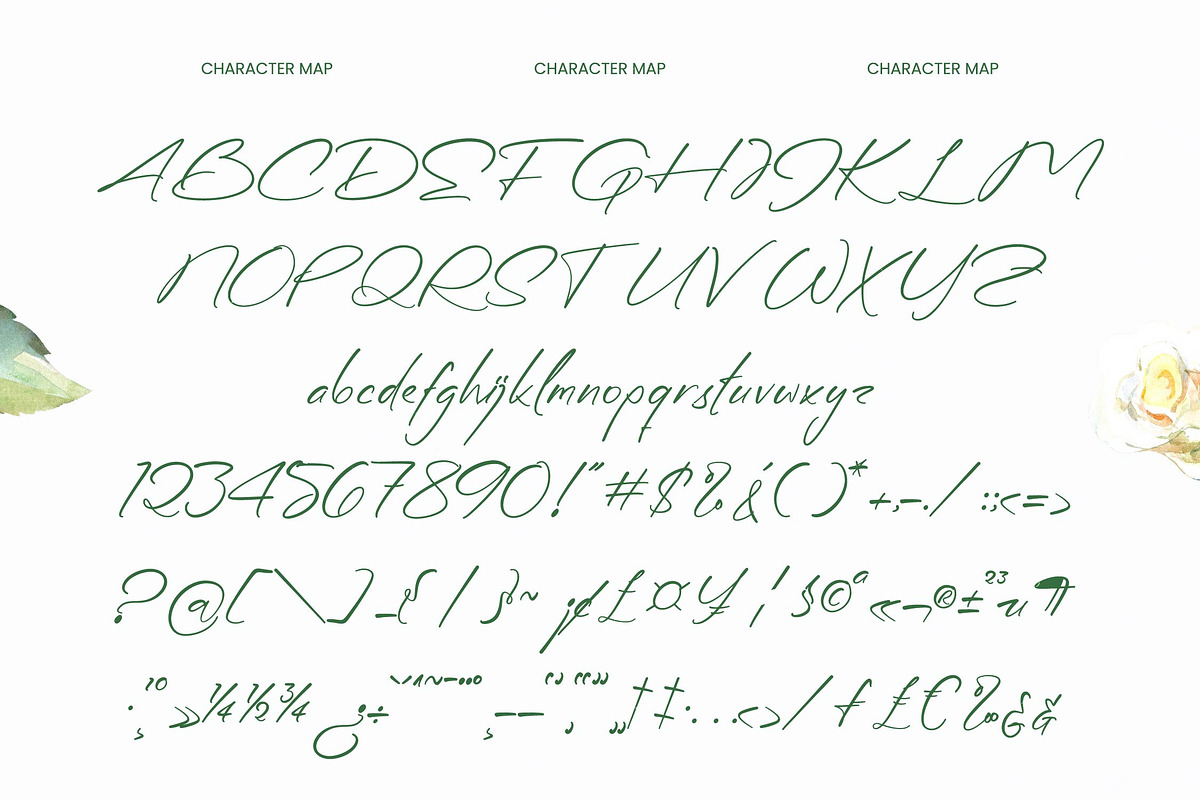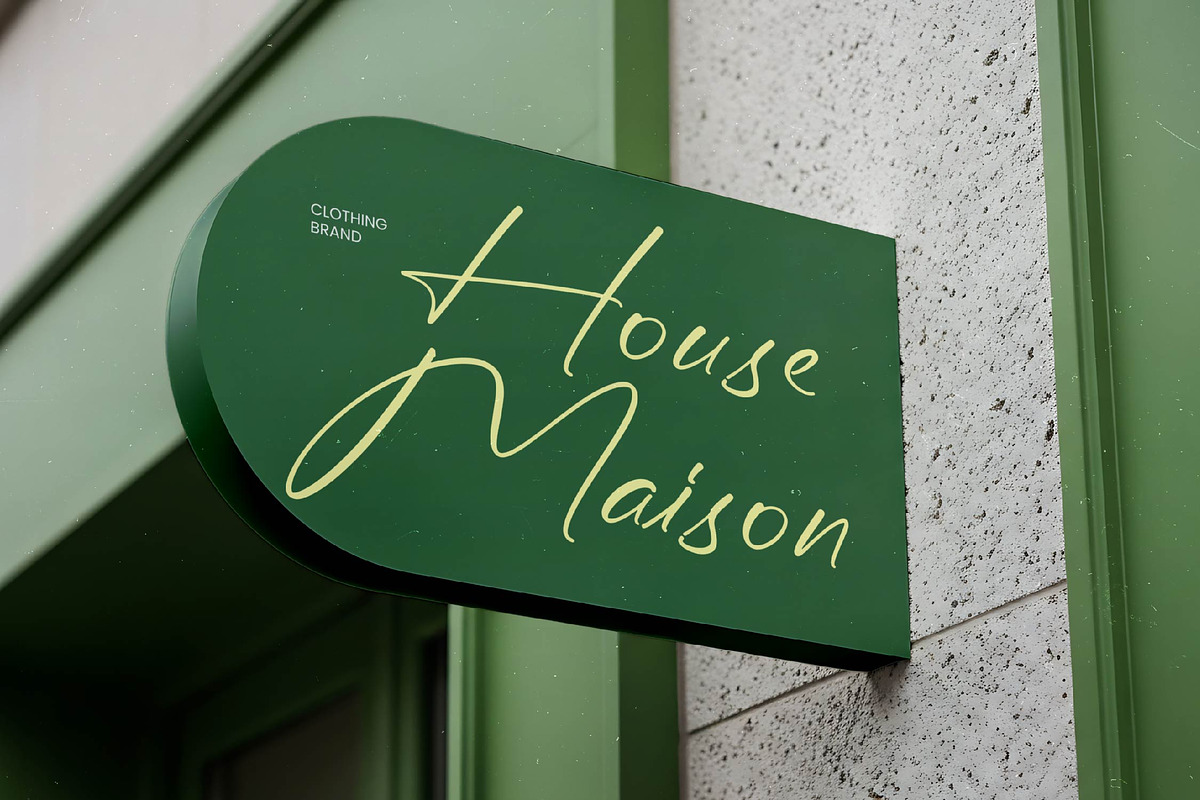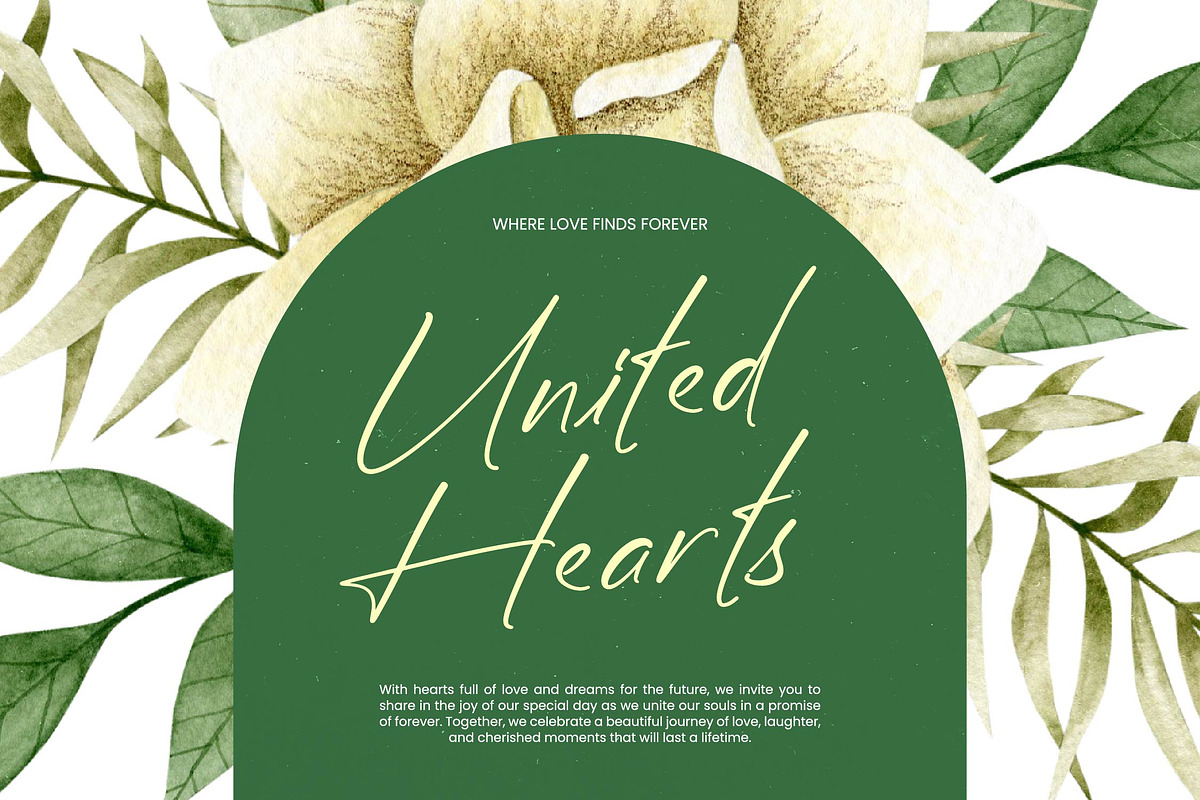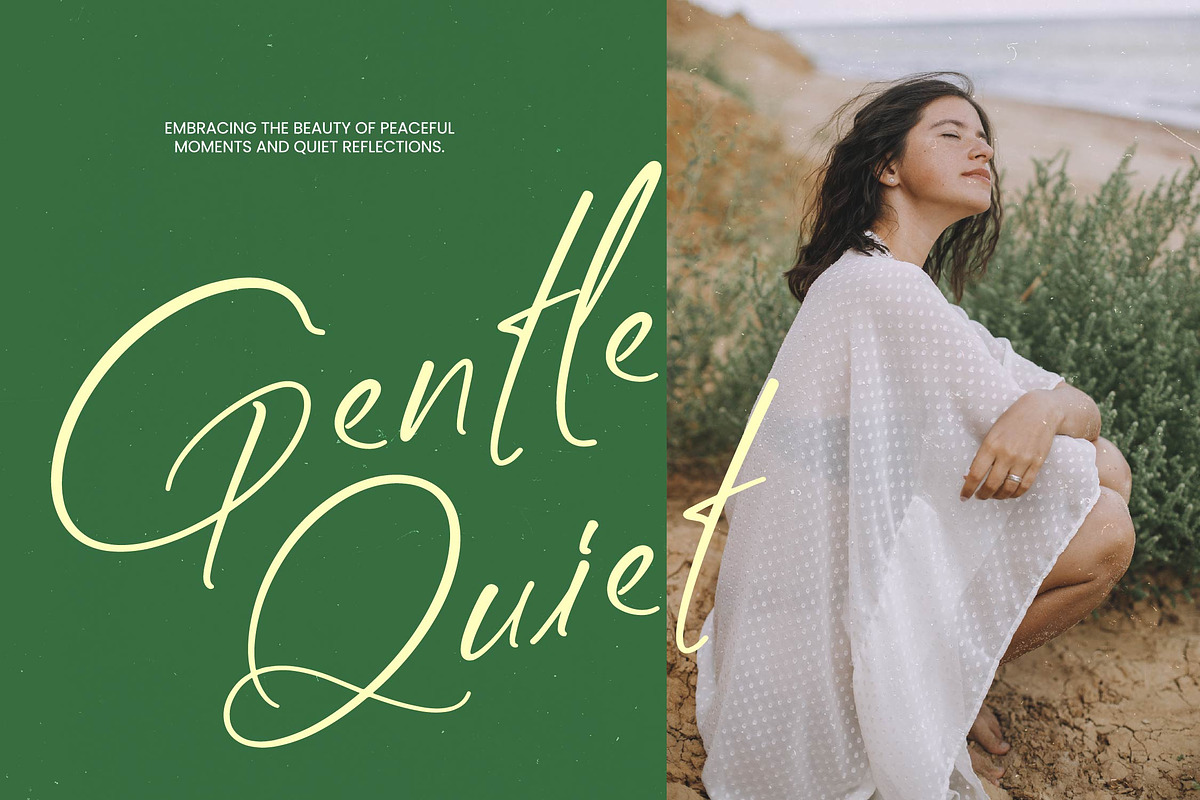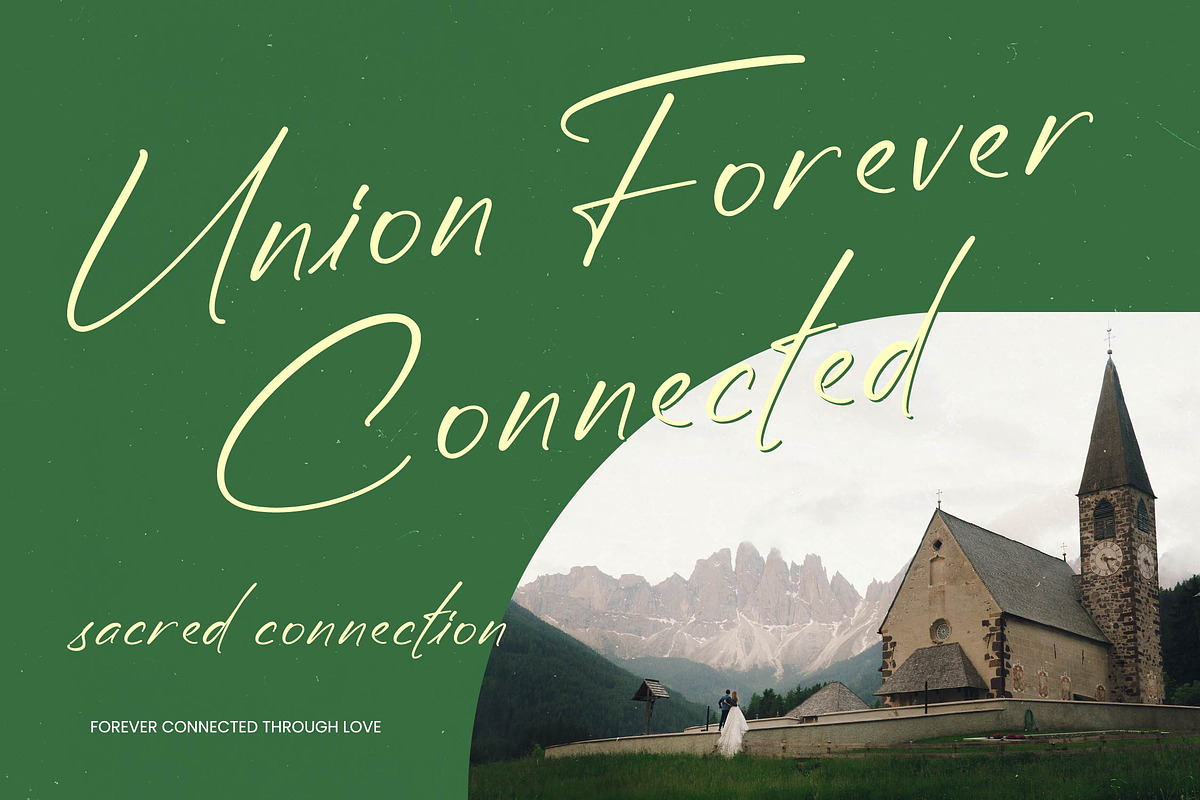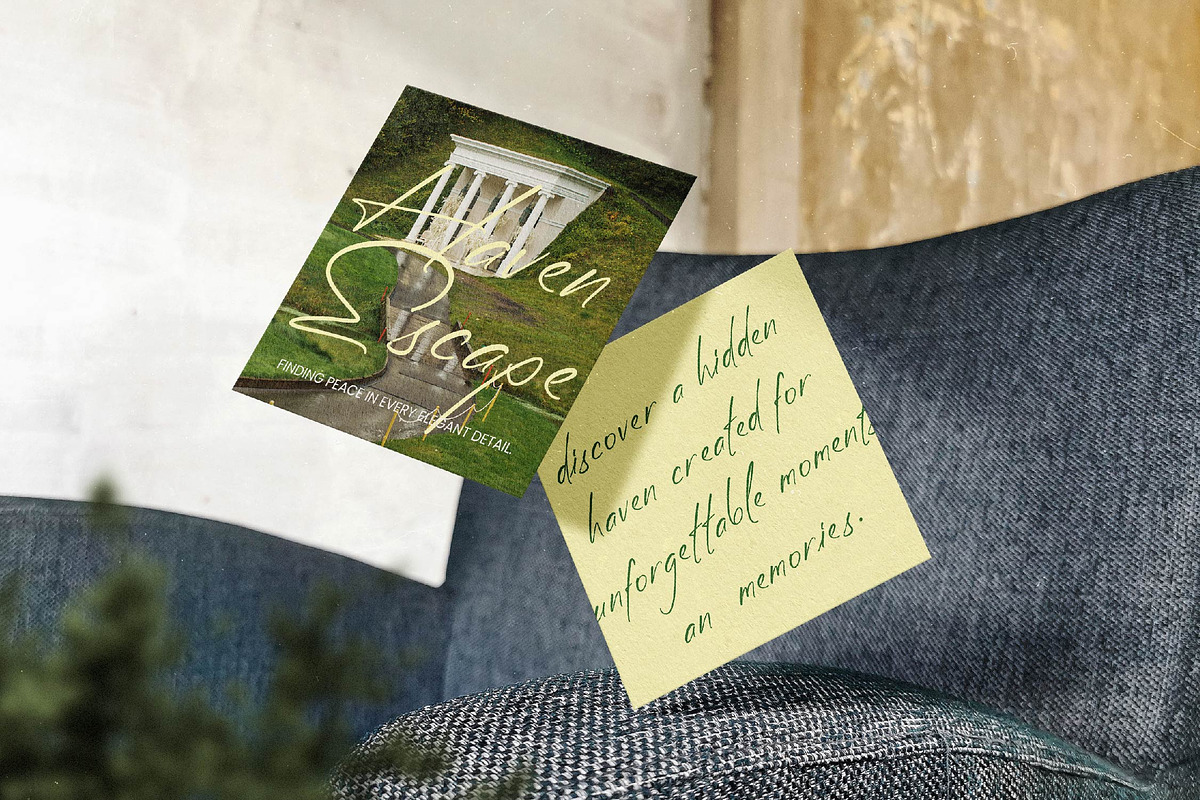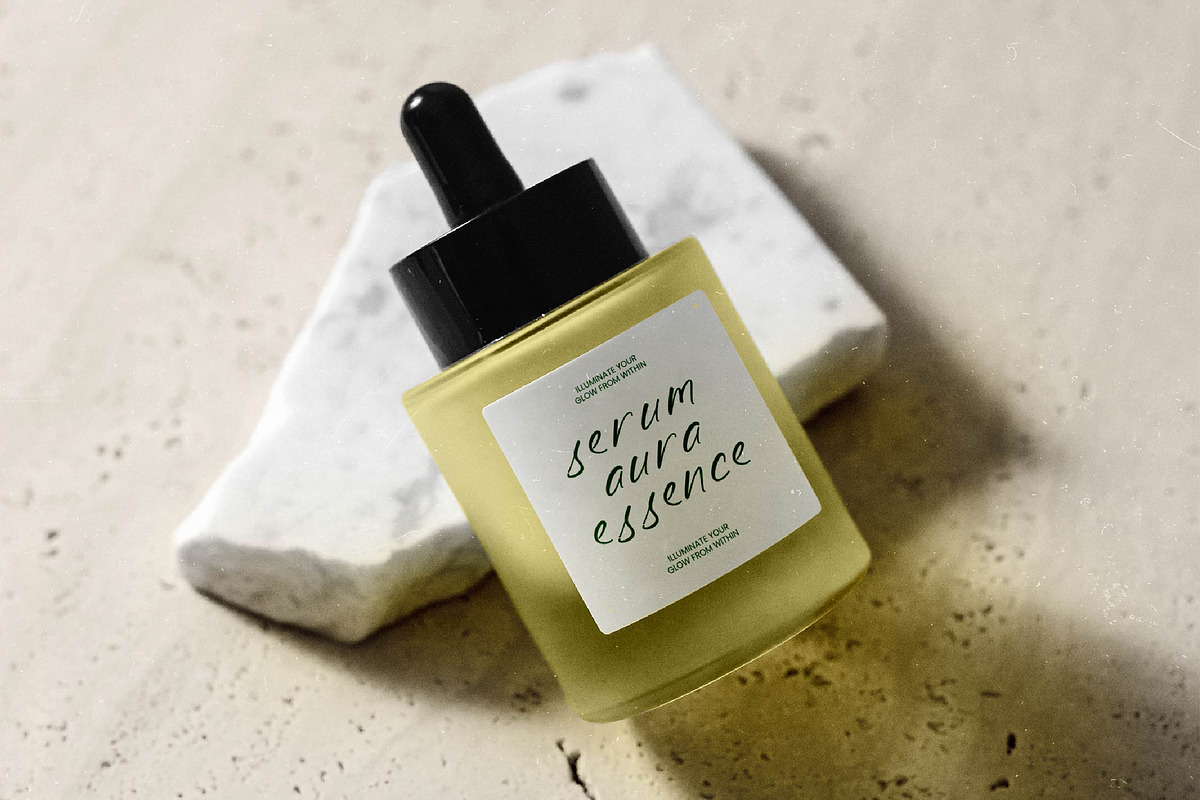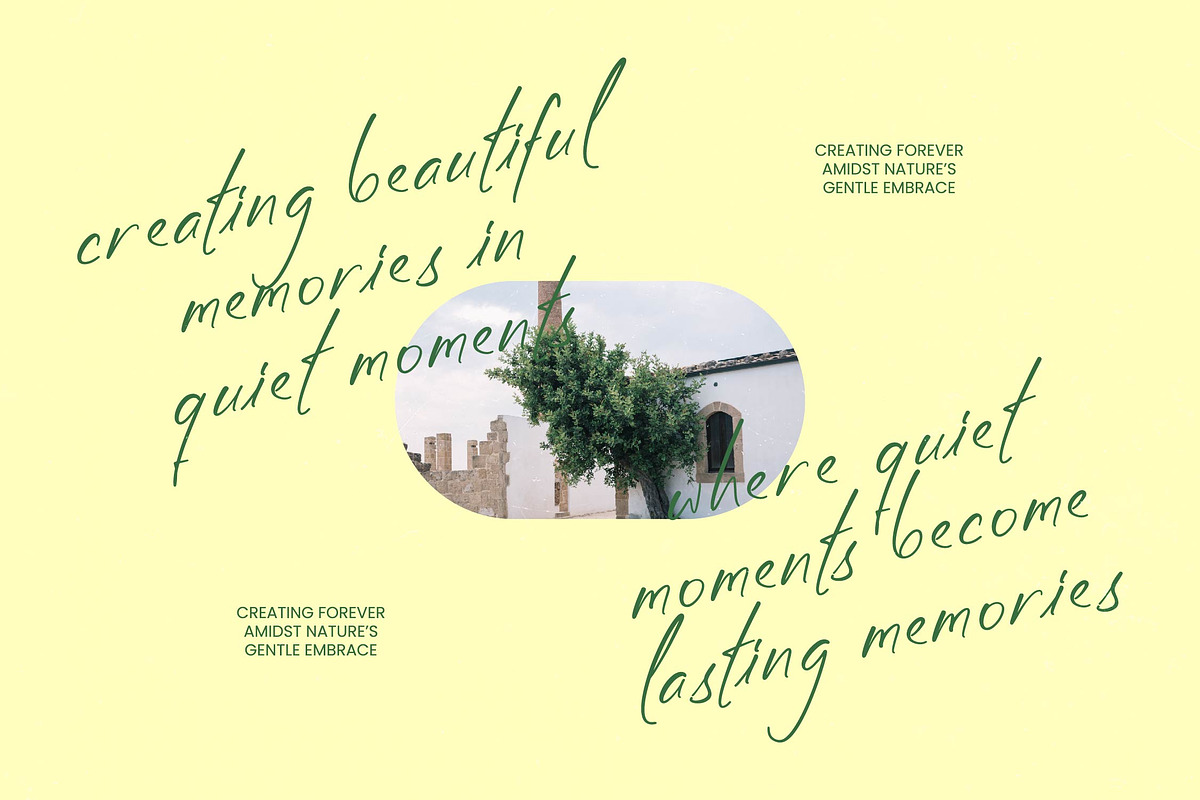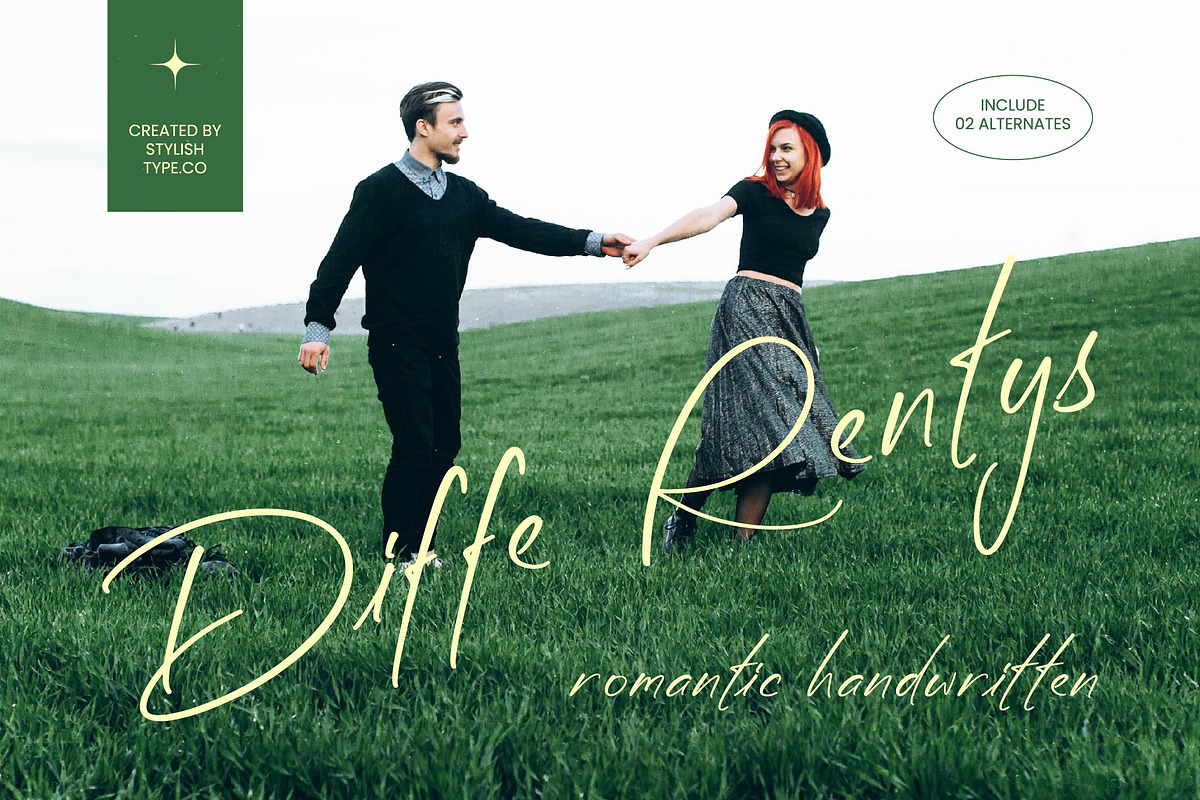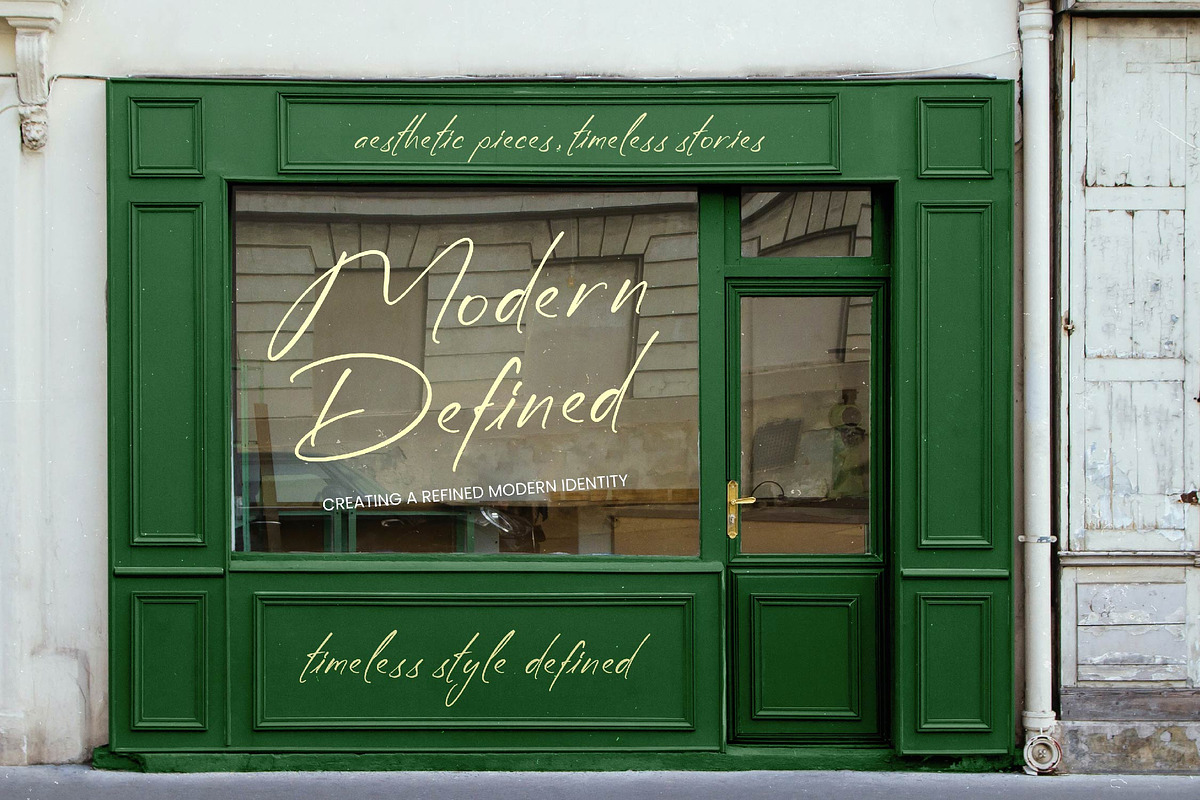
Diffe Rentys Romantic Handwritten
Diffe Rentys - Romantic Handwritten , Elevate your creative vision with a typeface that embodies effortless grace and sophisticated script aesthetics. Diffe Rentys - Romantic Handwritten is meticulously crafted to offer a natural flow and handcrafted charm that resonates with modern elegance. Its fluid strokes and organic movement provide a unique human touch, making it an essential tool for designers seeking to convey intimacy and premium quality in every character.
Discover the ultimate solution for high-end design projects that require a distinguished personal touch and visual storytelling. Diffe Rentys - Romantic Handwritten is the perfect choice for luxury branding, packaging design, and editorial layouts where a high-contrast, handwritten feel is paramount. Whether you are crafting bespoke wedding invitations or upscale social media content, this font ensures your message is delivered with unrivaled sophistication.
Expand your professional reach with a font engineered for global impact and technical versatility across diverse platforms. With its extensive multilingual support, Diffe Rentys - Romantic Handwritten adapts seamlessly across global markets, making it incredibly versatile for international projects. This robust character set ensures that your brand identity remains consistent and legible, regardless of the linguistic requirements of your commercial campaigns.
Secure a timeless asset for your typography toolkit and define your brand’s signature style with authentic personality. Diffe Rentys - Romantic Handwritten bridges the gap between classic calligraphy and contemporary design, offering distinctive character alternates that enhance its visual appeal. Invest in Diffe Rentys - Romantic Handwritten today to achieve a competitive edge and ensure your creative work stands out in a crowded commercial marketplace.